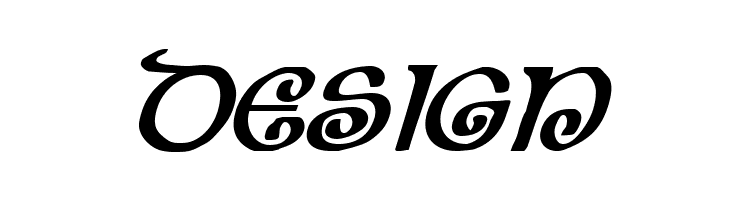
Eldebaran 3D Italic Font
- Font: Eldebaran 3D Italic
A bold, decorative font with whimsical curves and fantasy-like flourishes.
A whimsical, decorative font with playful curves and swirls.
A bold, italic, and decorative font with whimsical, fantasy-inspired letterforms.